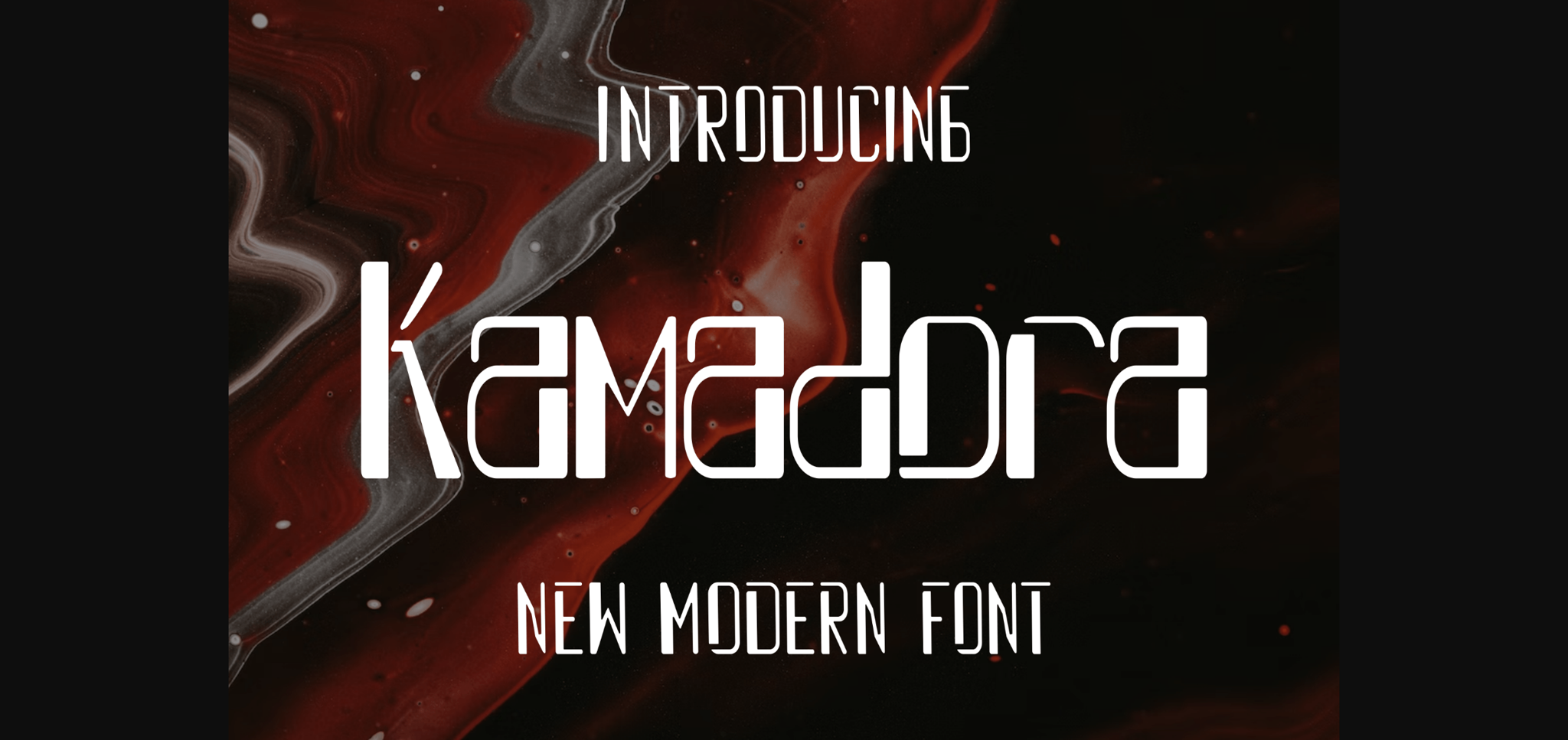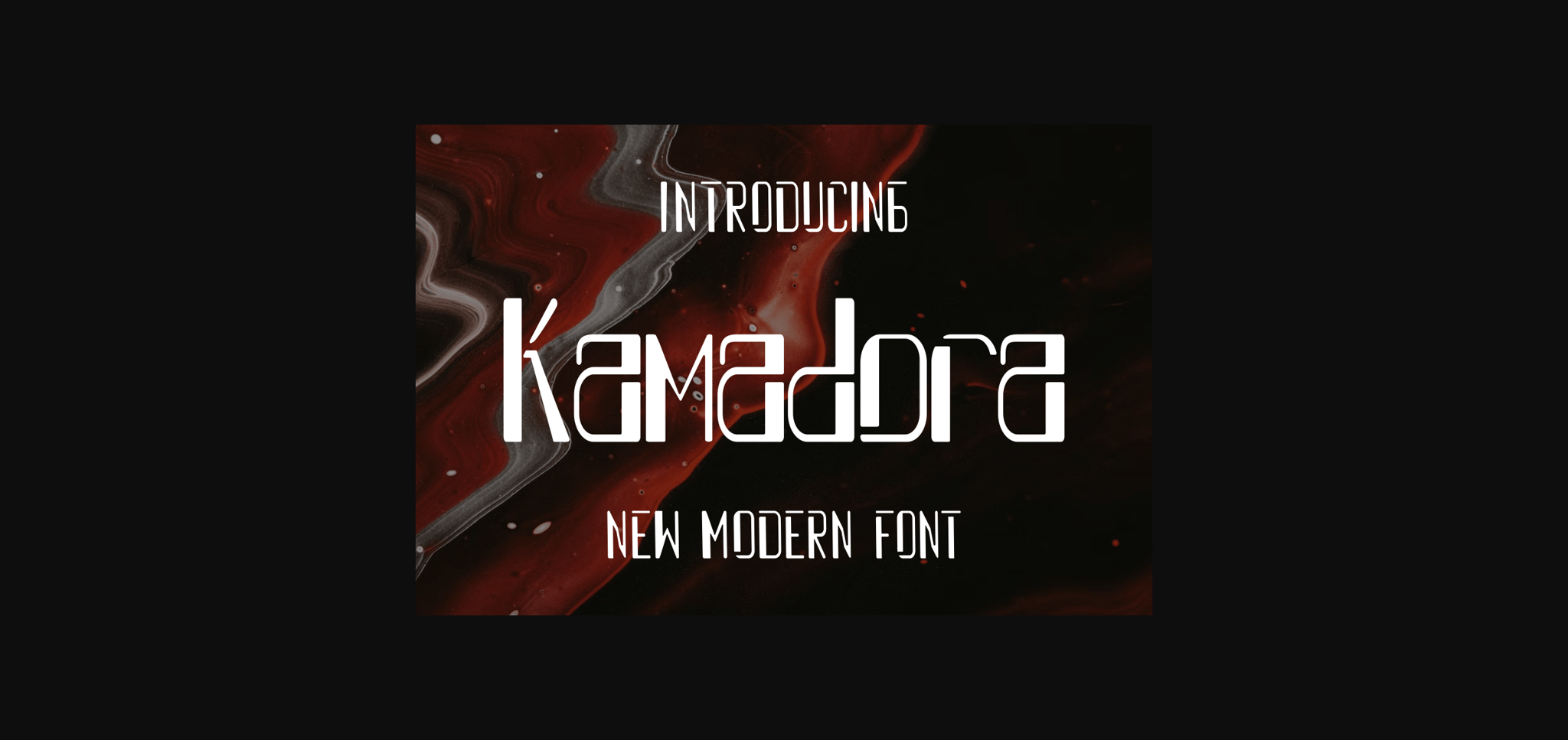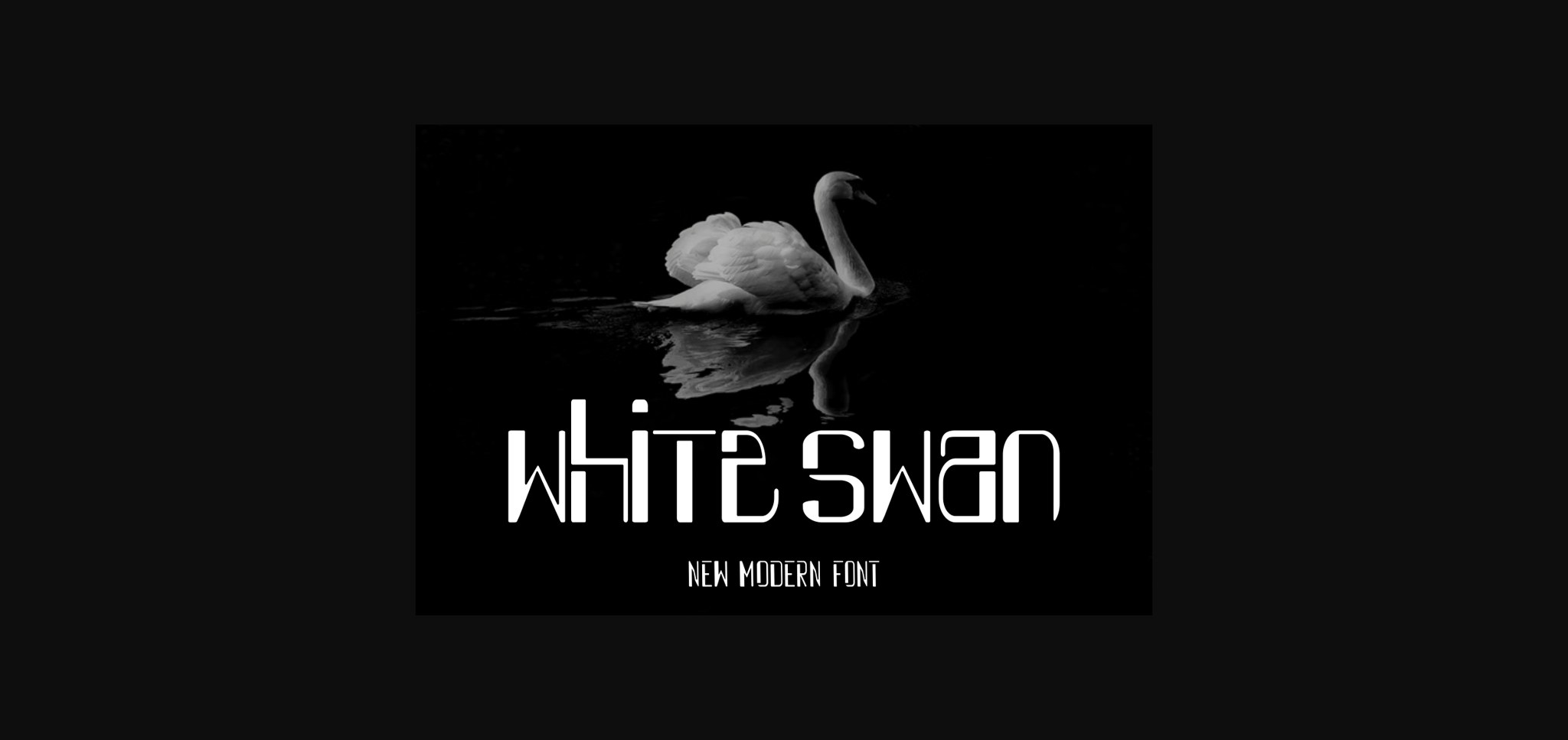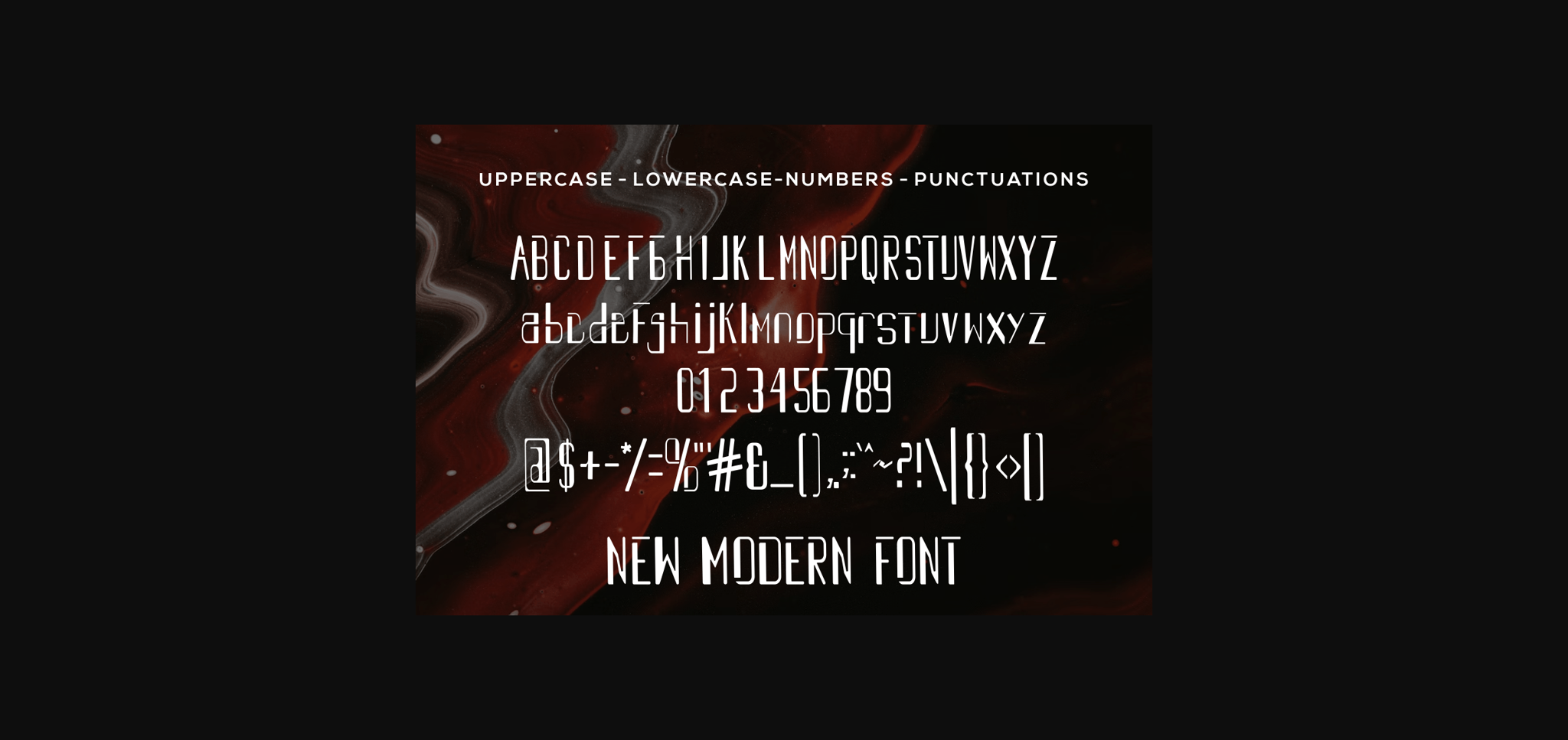
Kamadora Font
About Kamadora Font
Kamadora is a unique sans serif font that feels beautiful, solemn, and modern. This font is perfectly suited for a wide variety of projects, such as signature, stationery, logo, wedding, typography quotes, magazine or book cover, website header, clothing, branding, packaging design, and more.